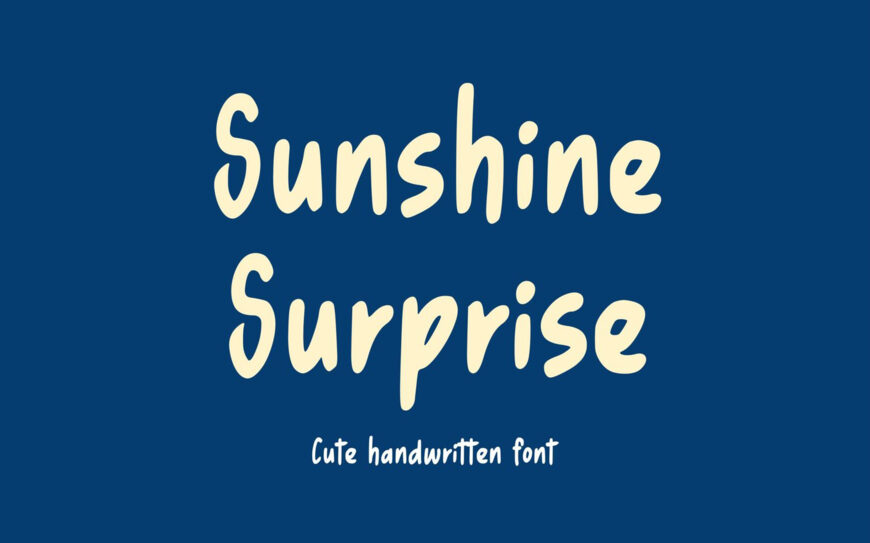
Sunshine Surprise is a cute and playful font with a casual handwritten feel. Its friendly character makes it perfect for cheerful designs, invitations, greeting cards, journals, notebooks, social media graphics, and personal projects. Designed by Jonathan S. Harris, this charming typeface brings a warm, lighthearted touch to creative work.